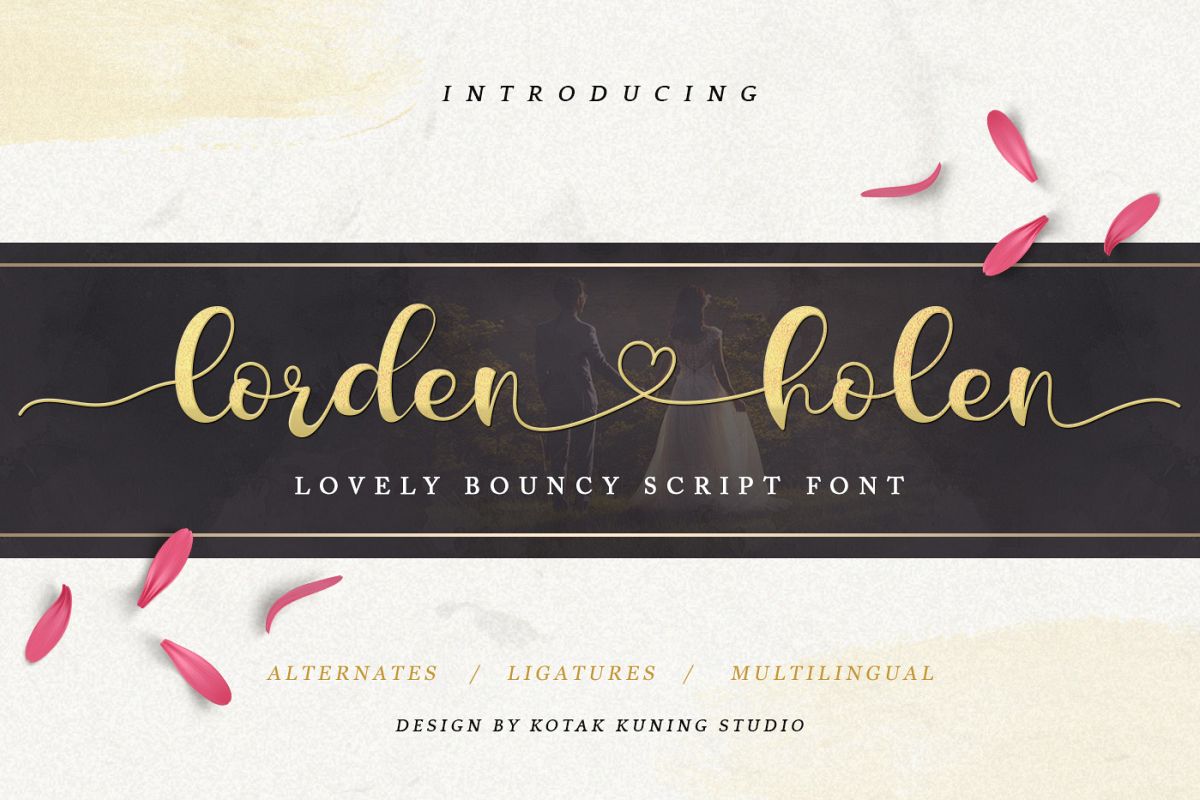
Lovely Script - Lorden Holen Font
Say hello to Lorden Holen!
Lorden Holen is a lovely bouncy script font with a natural & stylish flow. Perfect for making elegant stylish statements - or adding a touch of class to your designs.
This script has a multitude of lovely alternates character in its OpenType features - making the font look a beautiful
Lorden Holen is perfect for many different projects such as logos & branding, invitation, stationery, wedding designs, social media posts, advertisements, product packaging, product designs, label, photography, watermark, special events or anything.
• Lorden Holen includes capital and lowercase letters, alternates, and Ligatures
• Numbers + punctuation
• Foreign language support